Laced Typography
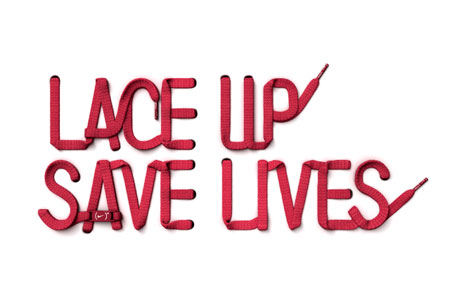
Typography with anything, in this case with lace for a Nike campaign by Nedjelco-michel Karlovich. Via Allan Peters blog.
A while ago I created a video making type with shoelaces: